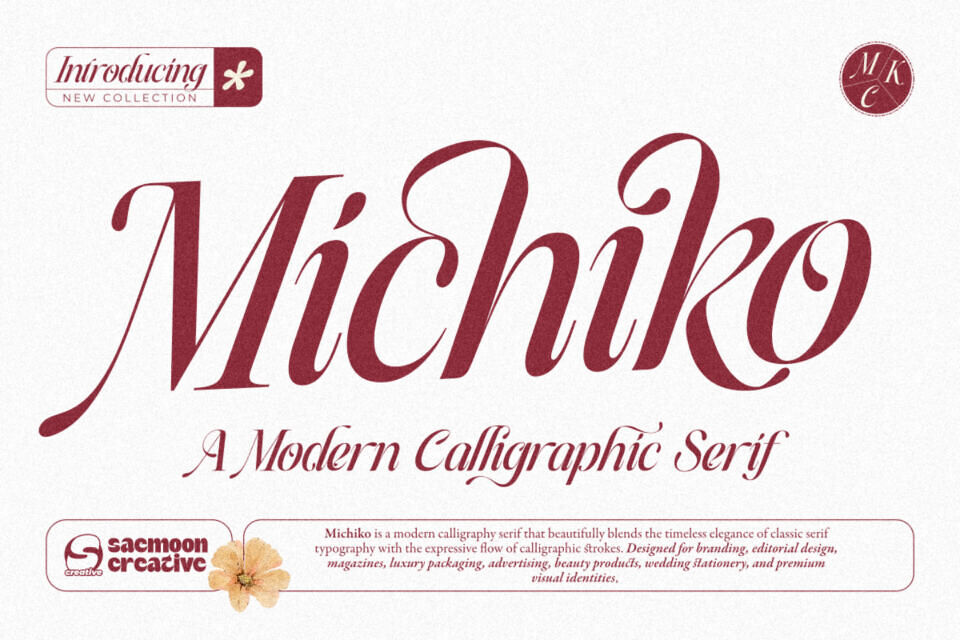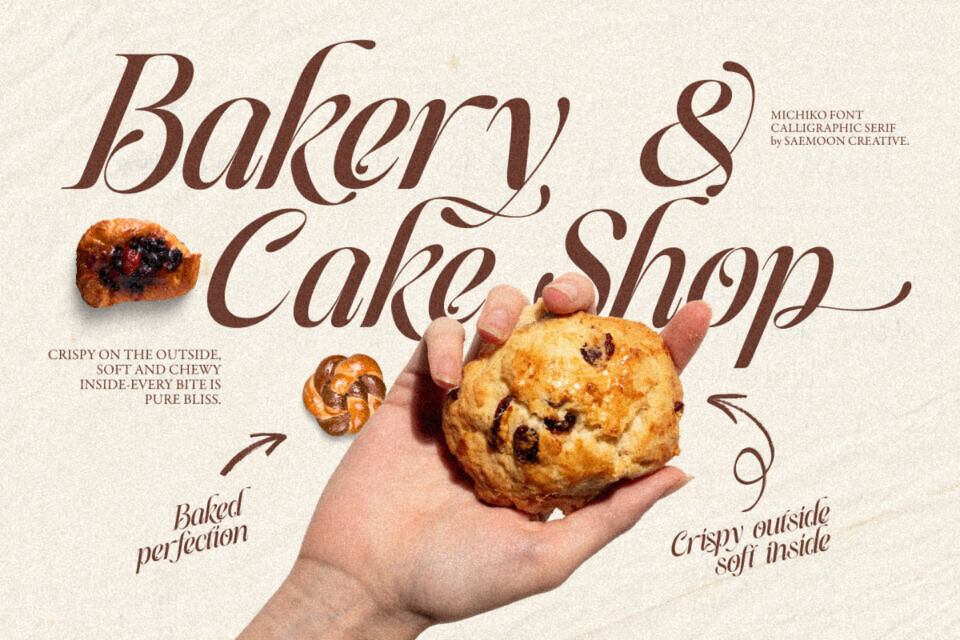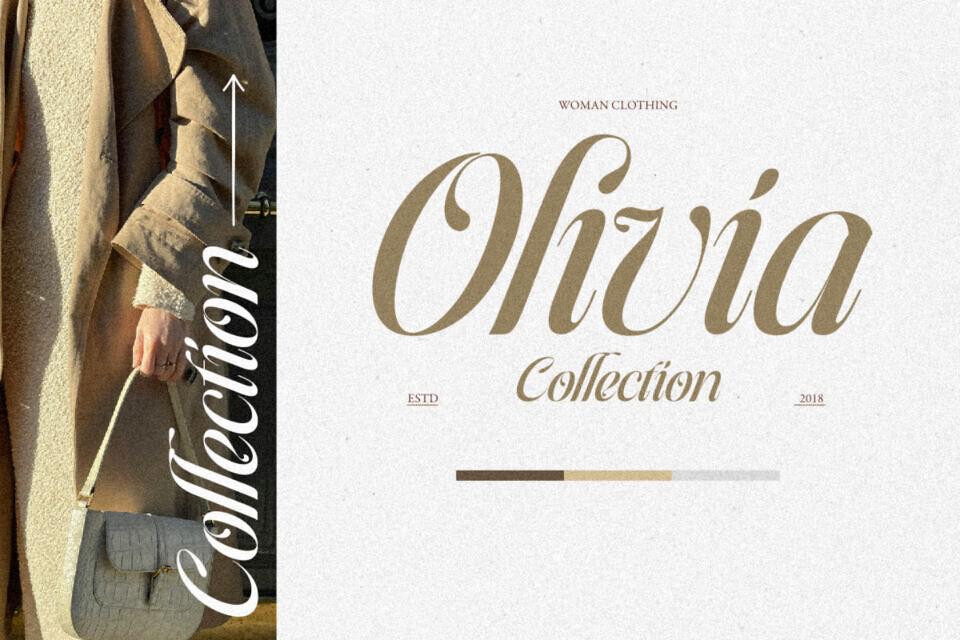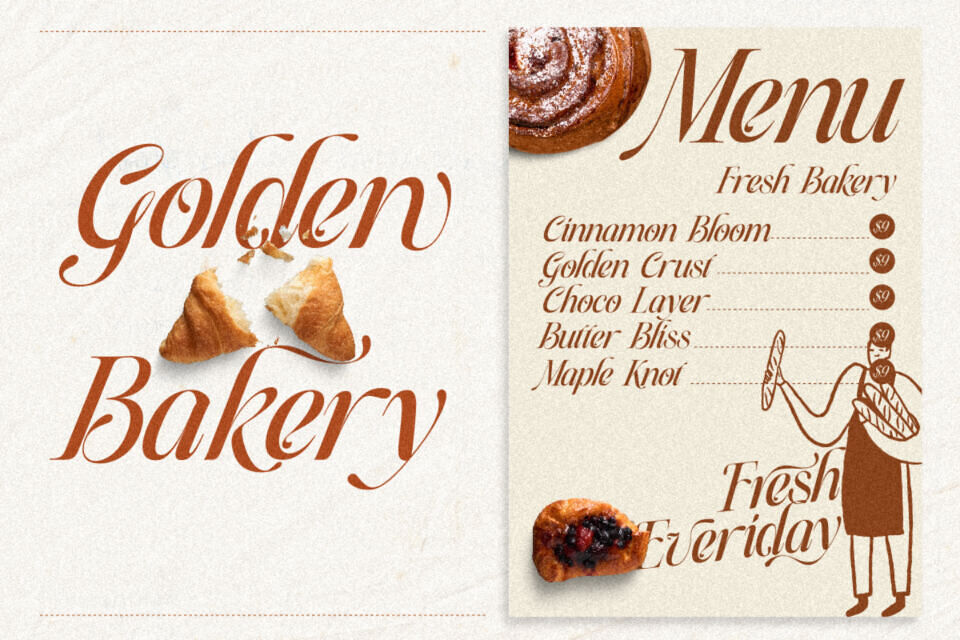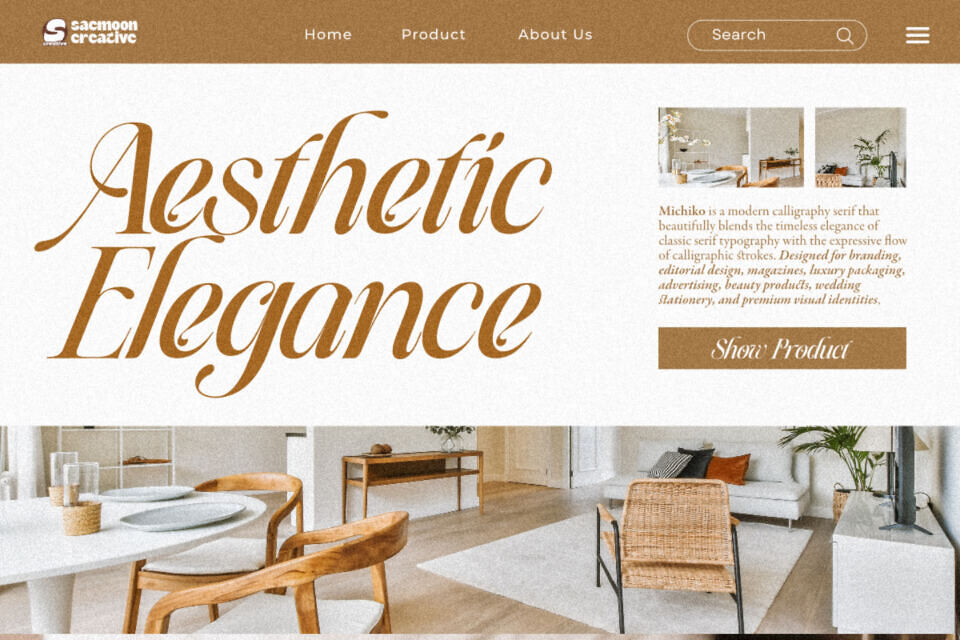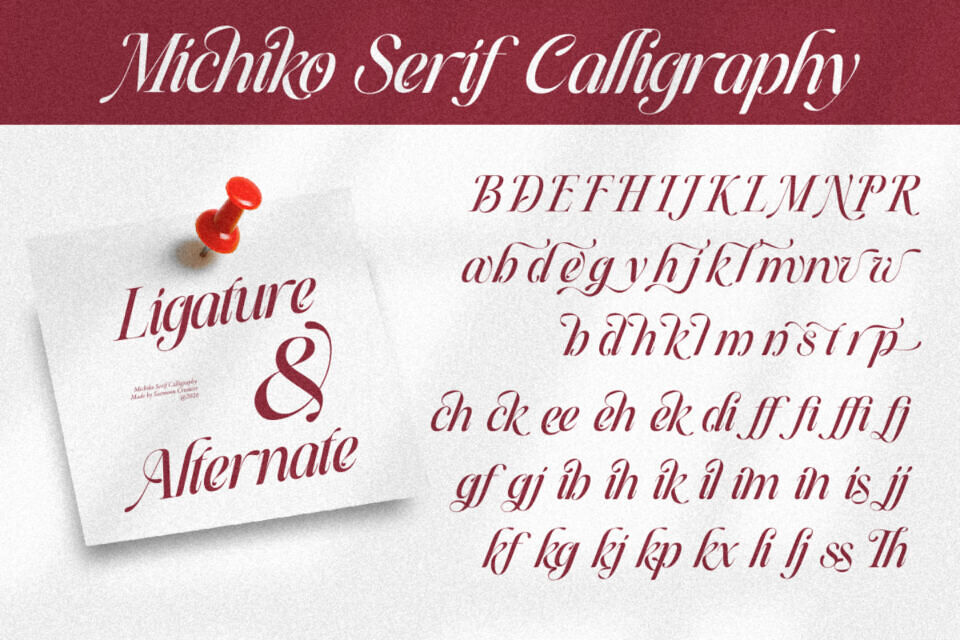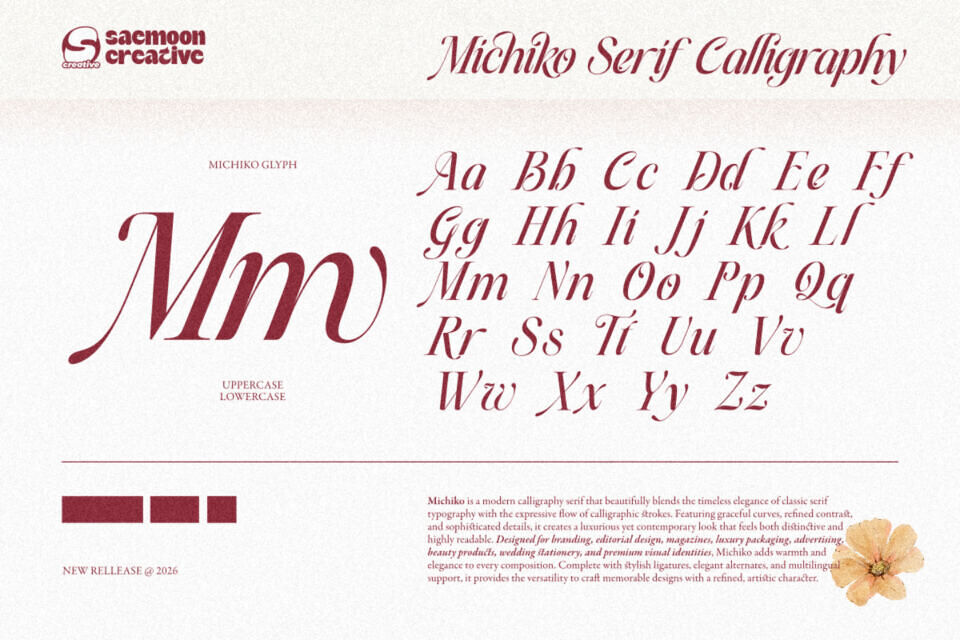
Michiko Font
Elevate your designs with Michiko, a modern calligraphy serif font that combines the timeless elegance of classic serif typography with the graceful beauty of flowing calligraphy. Designed with high-contrast strokes, delicate curves, and refined details, Michiko brings a luxurious and sophisticated personality to every project.
Perfect for designers, entrepreneurs, and creative professionals, Michiko is crafted to make branding stand out. Whether you’re creating a luxury logo, fashion campaign, wedding invitation, editorial layout, or premium product packaging, this font delivers an elegant and memorable impression.